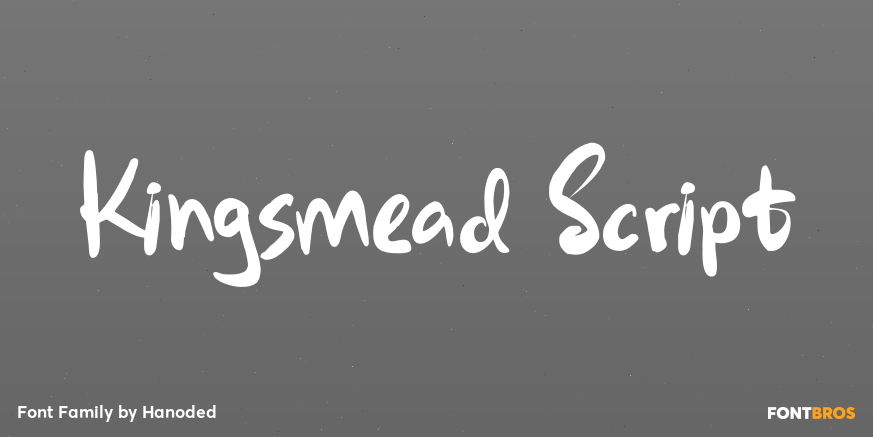
About Kingsmead Script
Last year I spent some time exploring the city of Bath in England. Its claim to fame are the Roman Baths in the city center, which are well worth a visit. Kingsmead is an electoral ward within Bath and I thought it was an apt name for this rather stylish…